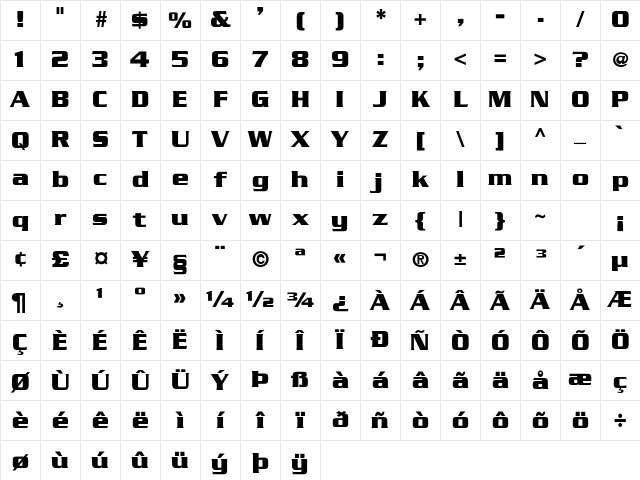
Geodet Display SSi Regular Free Font
Geodet Display SSi Regular
Design Context for Geodet Display SSi
Geodet Display SSi is built around its visual character rather than neutral utility - its distinctive forms are designed to make an impression at display sizes.
Font Pairing: Pair with a clean neutral sans-serif for body copy to let Geodet Display SSi's character lead without overwhelming the composition.
Pro Tip: Use Geodet Display SSi exclusively at display sizes - it was designed to be seen, not read at length. Let a neutral companion handle body copy.